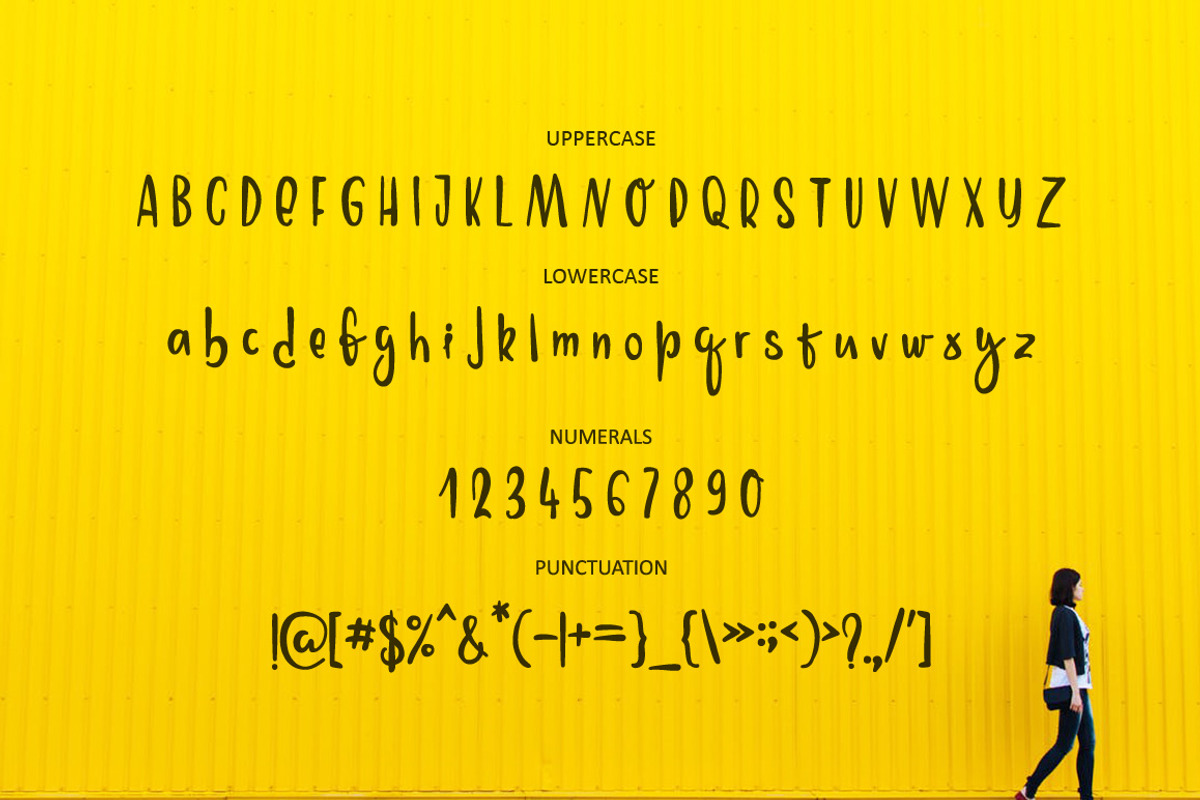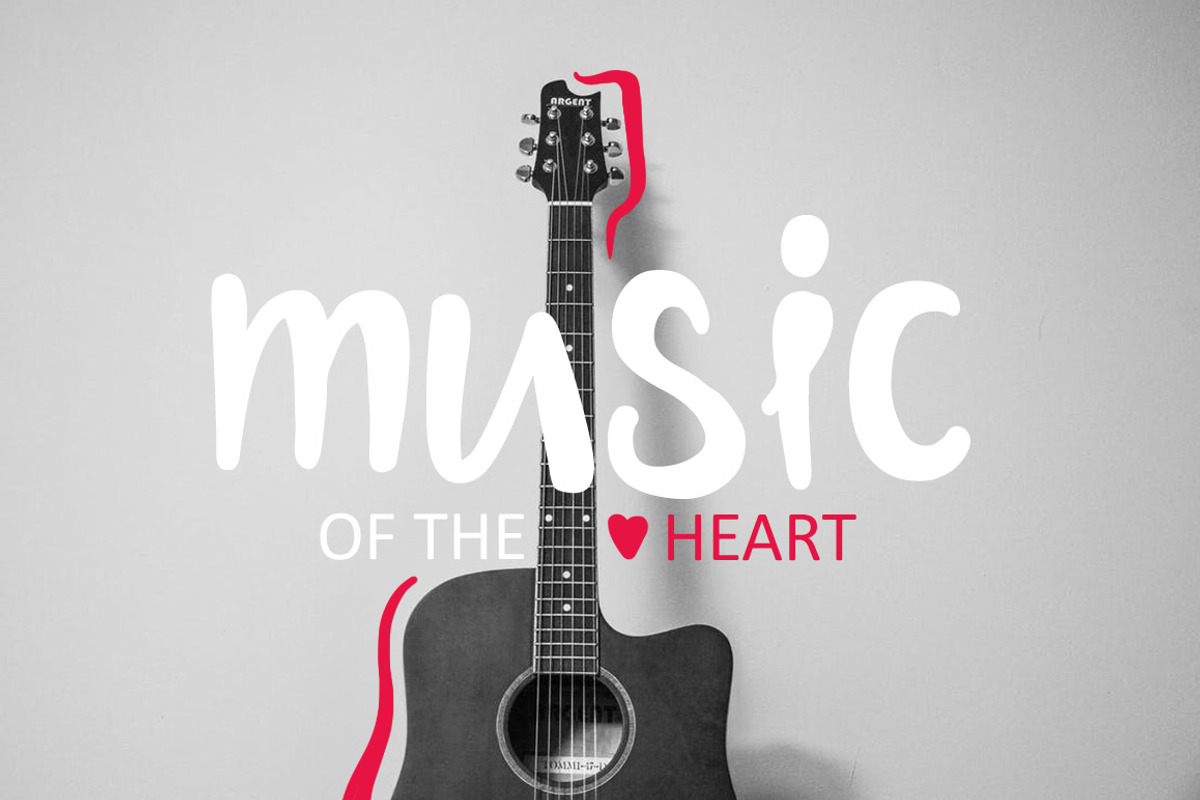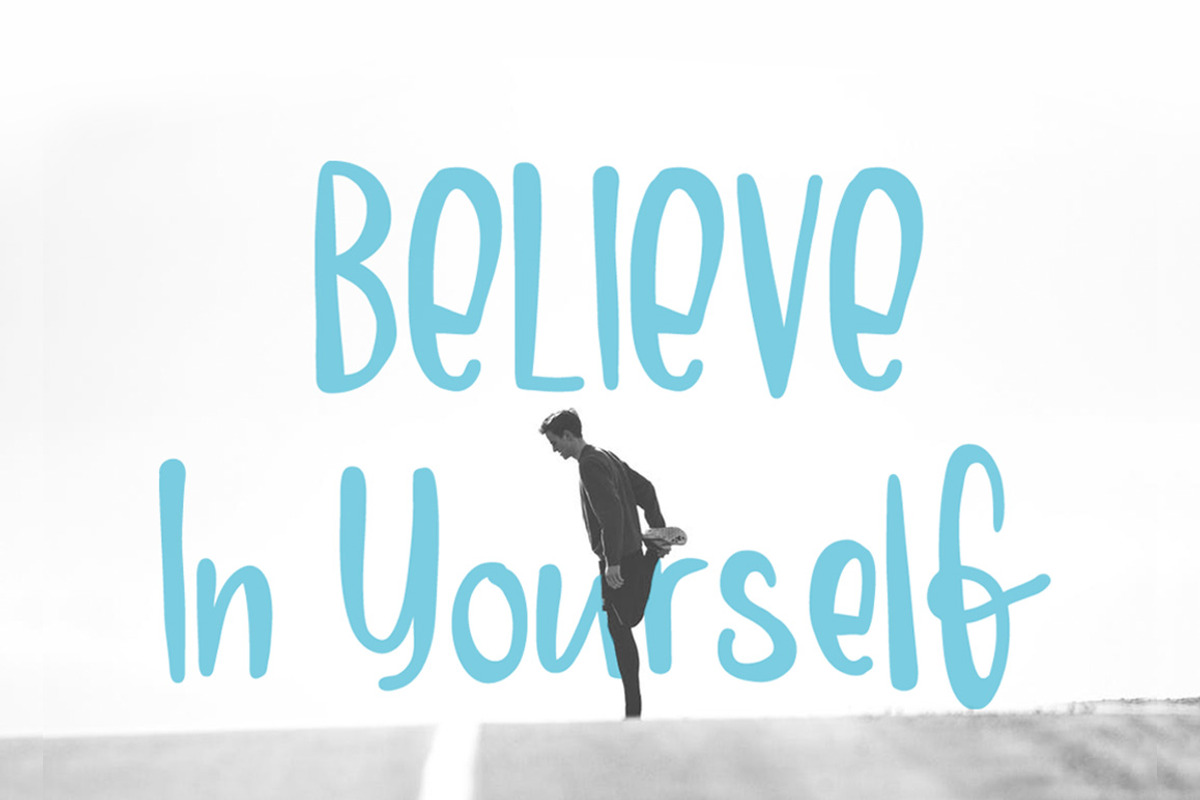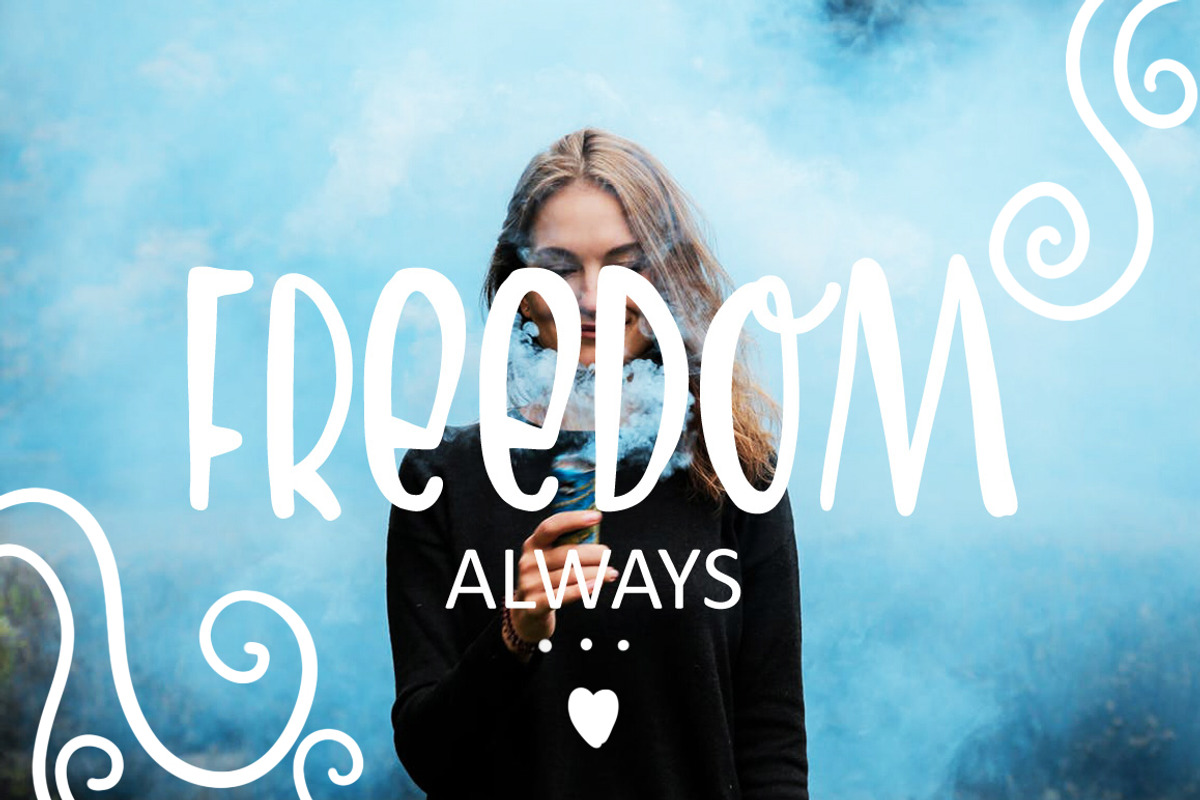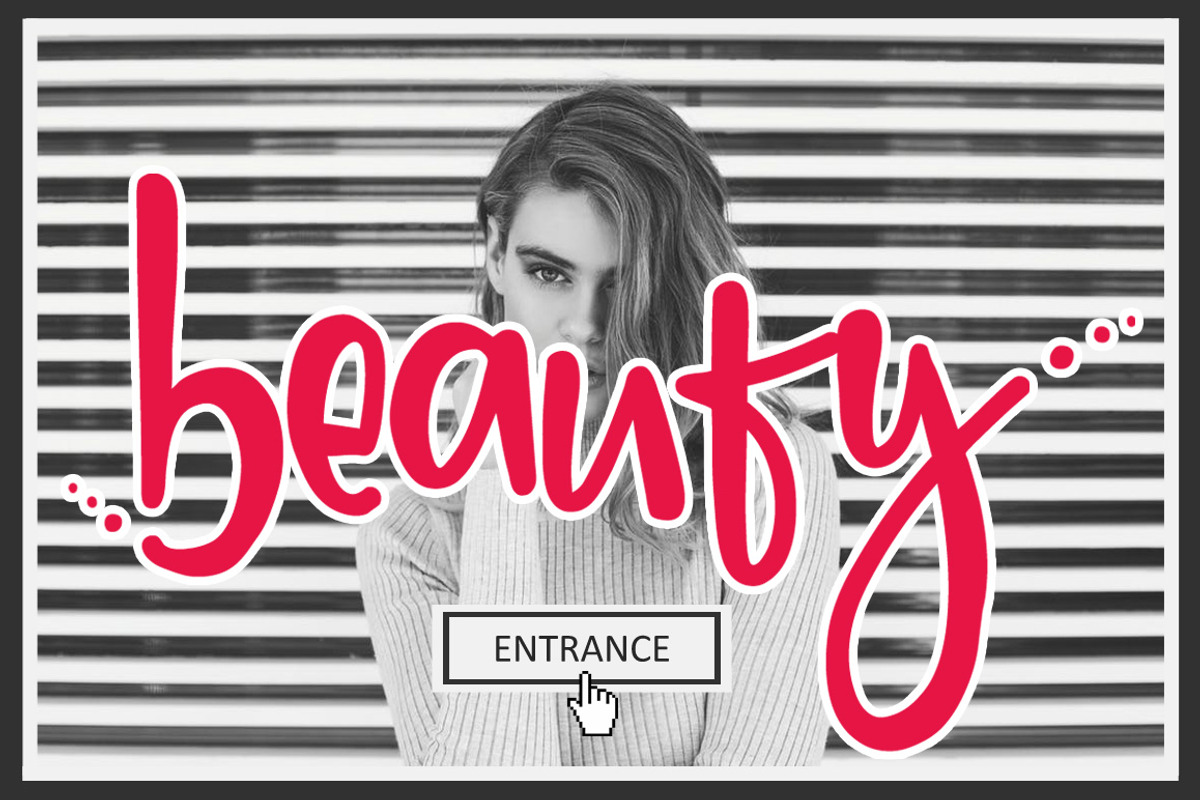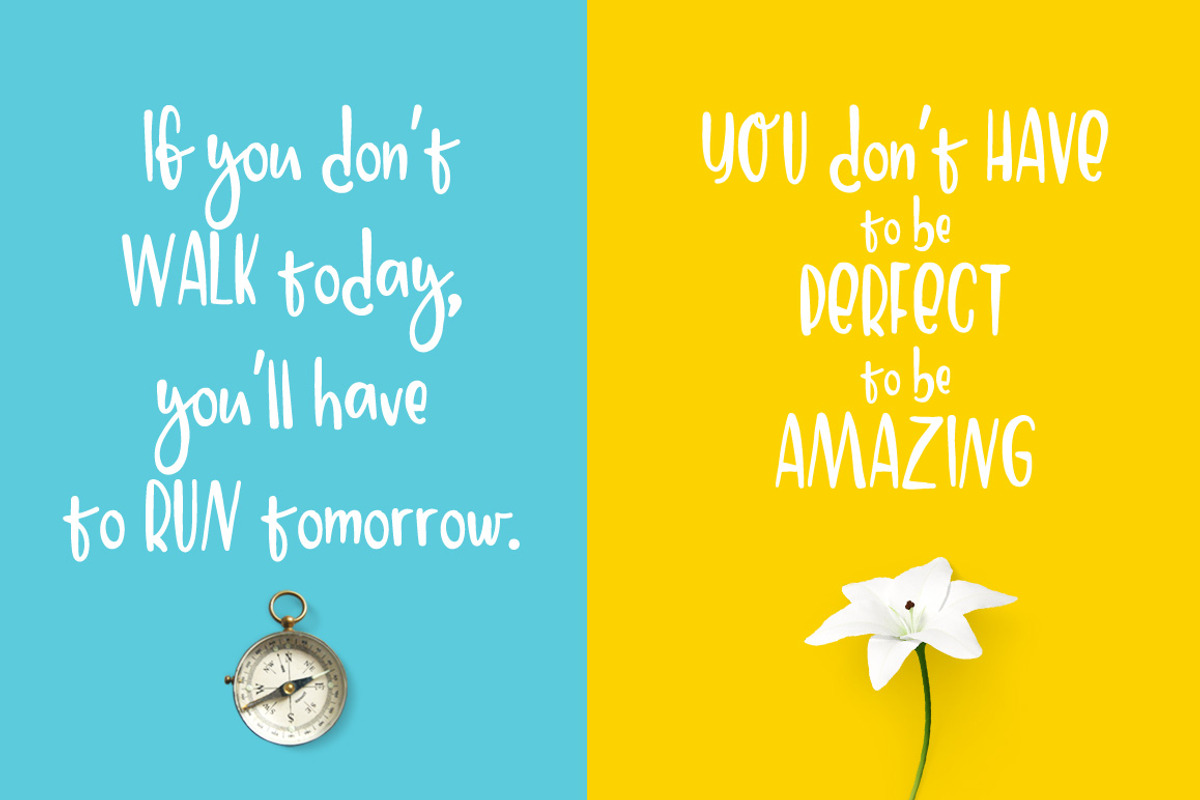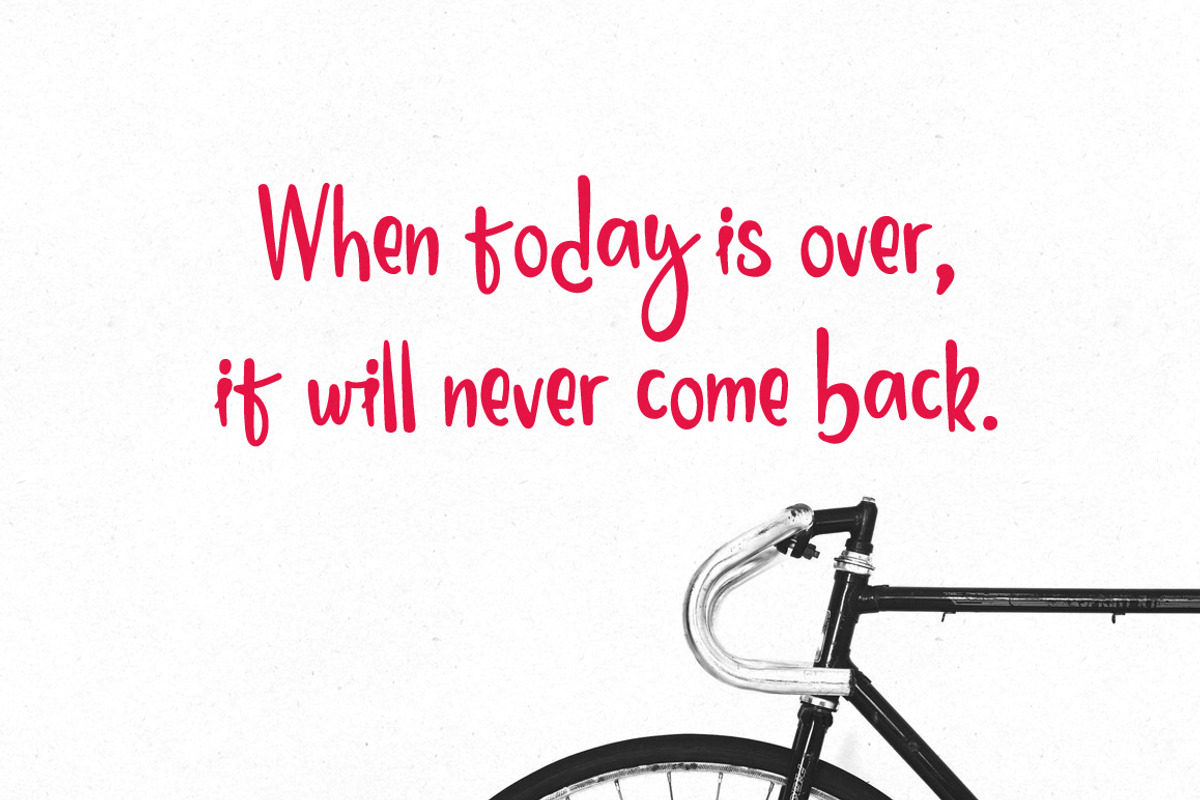
Amaury handwritten font
Amaury handwritten font by Wewhitelist is a font selected for branding, posters, packaging, typography.
Why Amaury handwritten font is worth a look
Amaury handwritten font by Wewhitelist fits naturally into Branding, posters, packaging, typography.